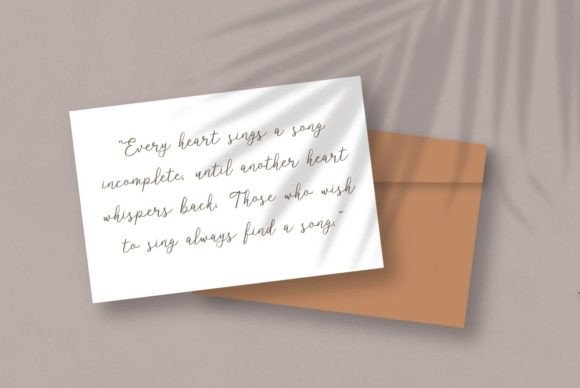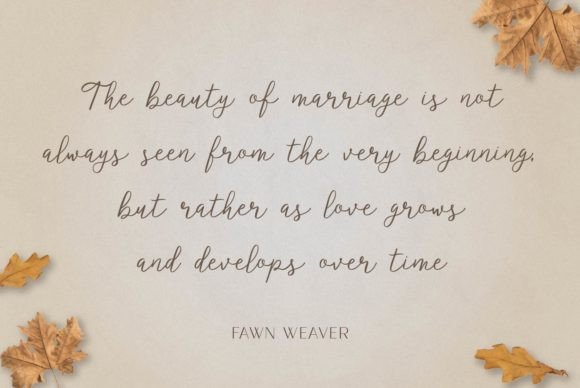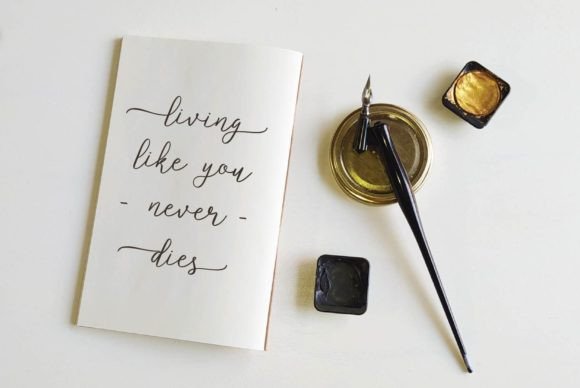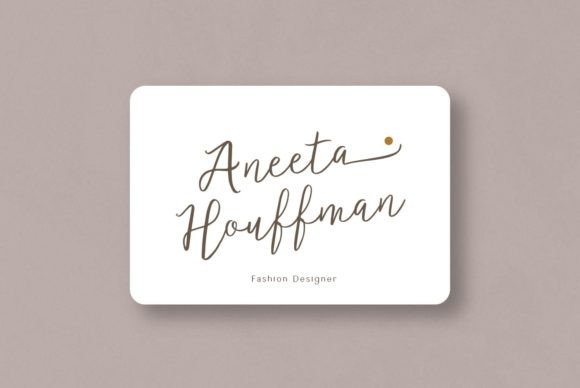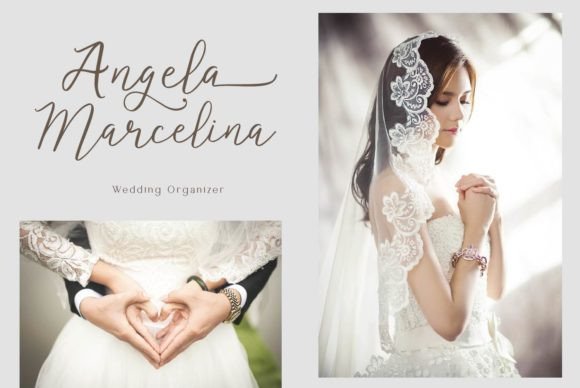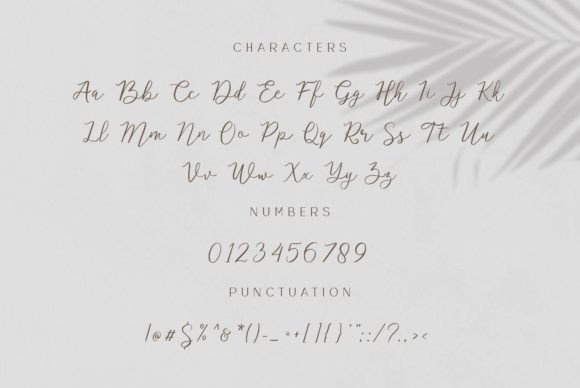
Discover the Enchanting Beauty Font: Elevate Your Crafty Projects with Authentic Typography
Are you a designer, crafter, or DIY enthusiast looking for a font that can add a touch of elegance and sophistication to your projects? Look no further than the Enchanting Beauty Font! This delicate and well-rounded handwritten font is perfect for crafty projects that require authentic typography. In this article, we’ll explore the features and benefits of the Enchanting Beauty Font, and show you how to use it to take your designs to the next level.
What is the Enchanting Beauty Font?
The Enchanting Beauty Font is a beautiful, handwritten font designed to bring a touch of whimsy and romance to your projects. Its delicate and flowing lines make it perfect for a variety of applications, from wedding invitations and birthday cards to personal branding and elegant logos. With its well-rounded and authentic feel, this font is sure to add a touch of sophistication to any design.
Features of the Enchanting Beauty Font
So, what makes the Enchanting Beauty Font so special? Here are just a few of its key features:
- Delicate and well-rounded design: The Enchanting Beauty Font features delicate and flowing lines that give it a romantic and whimsical feel.
- Handwritten authenticity: This font is designed to look like it was written by hand, giving it a personal and authentic feel.
- Versatile: The Enchanting Beauty Font is perfect for a variety of projects, from wedding invitations and birthday cards to personal branding and elegant logos.
- Elegant and sophisticated: This font is sure to add a touch of elegance and sophistication to any design.
Uses for the Enchanting Beauty Font
So, how can you use the Enchanting Beauty Font in your projects? Here are just a few ideas to get you started:
- Wedding invitations: The Enchanting Beauty Font is perfect for wedding invitations, adding a touch of romance and elegance to your designs.
- Birthday cards: This font is also great for birthday cards, giving them a personal and special touch.
- Personal branding: Use the Enchanting Beauty Font to create elegant and sophisticated personal branding materials, such as business cards and letterheads.
- Elegant logos: This font is perfect for creating elegant and sophisticated logos for your business or personal brand.
- Crafty projects: The Enchanting Beauty Font is great for a variety of crafty projects, such as scrapbooking, journaling, and more.
Tips for Using the Enchanting Beauty Font
Here are a few tips for using the Enchanting Beauty Font in your projects:
- Pair it with other fonts: The Enchanting Beauty Font pairs well with other fonts, such as serif and sans-serif fonts. Experiment with different combinations to find the one that works best for your project.
- Use it in combination with images: This font looks great in combination with images, such as watercolor illustrations and floral patterns.
- Experiment with different colors: The Enchanting Beauty Font looks great in a variety of colors, from soft pastels to rich jewel tones. Experiment with different colors to find the one that works best for your project.
In conclusion, the Enchanting Beauty Font is a beautiful and versatile font that is perfect for crafty projects that require authentic typography. With its delicate and well-rounded design, handwritten authenticity, and elegant feel, this font is sure to add a touch of sophistication to any design. Whether you’re a designer, crafter, or DIY enthusiast, the Enchanting Beauty Font is a great choice for a variety of projects, from wedding invitations and birthday cards to personal branding and elegant logos. So why wait? Download the Enchanting Beauty Font today and start creating beautiful and enchanting designs!